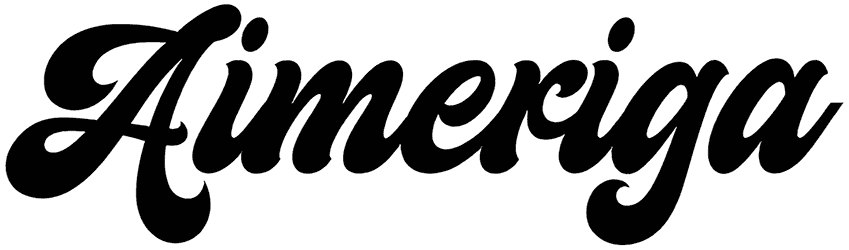
Aimeriga Font
Elegant retro fonts such as the present item are among the most popular letterforms. The soft and playful style of the Aimeriga font will be a nice adornment for your words in different projects, namely a hoodie or something. With this baseballfont, you can create a unique nightclub sign and grab a lot of attention.